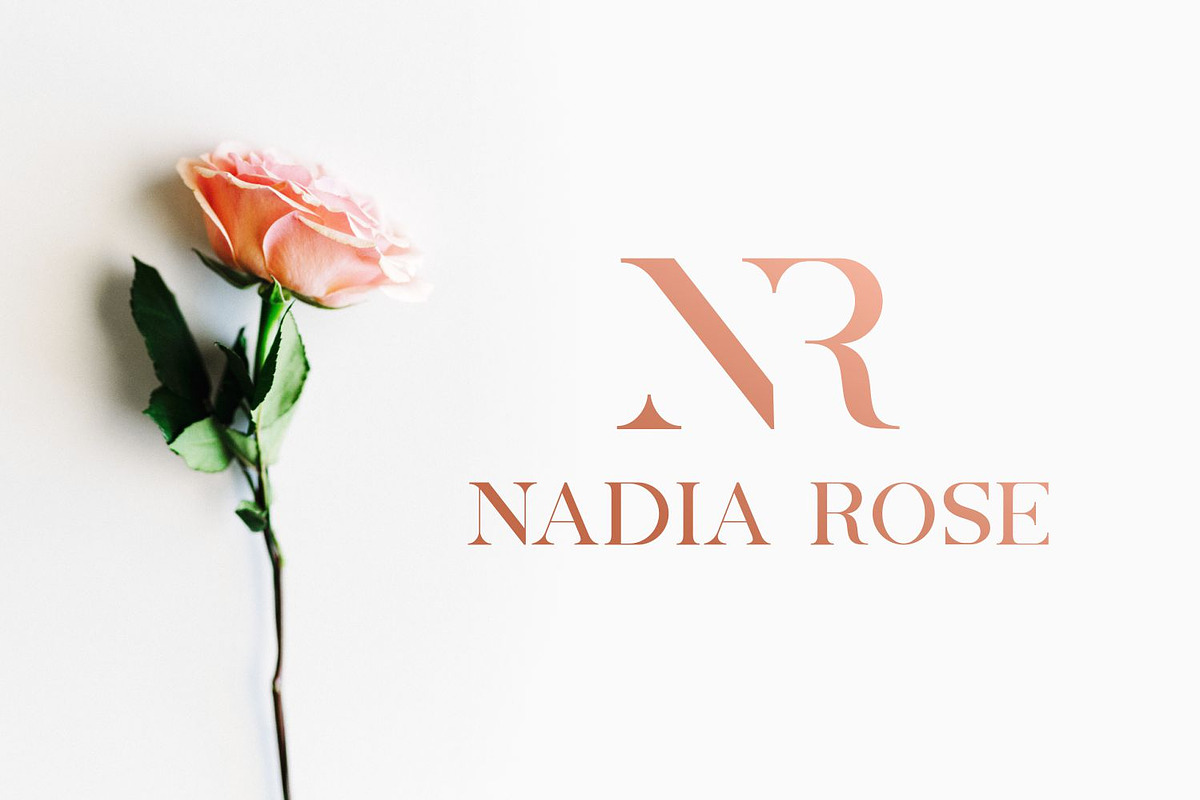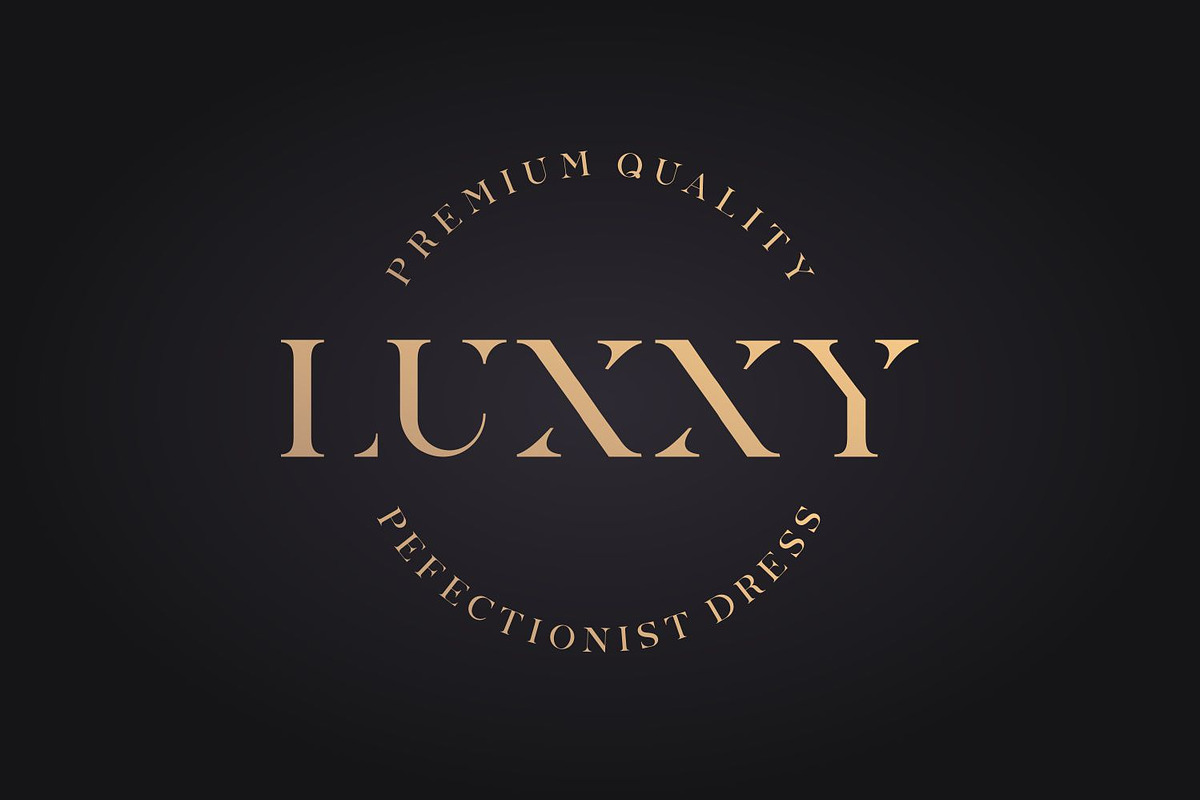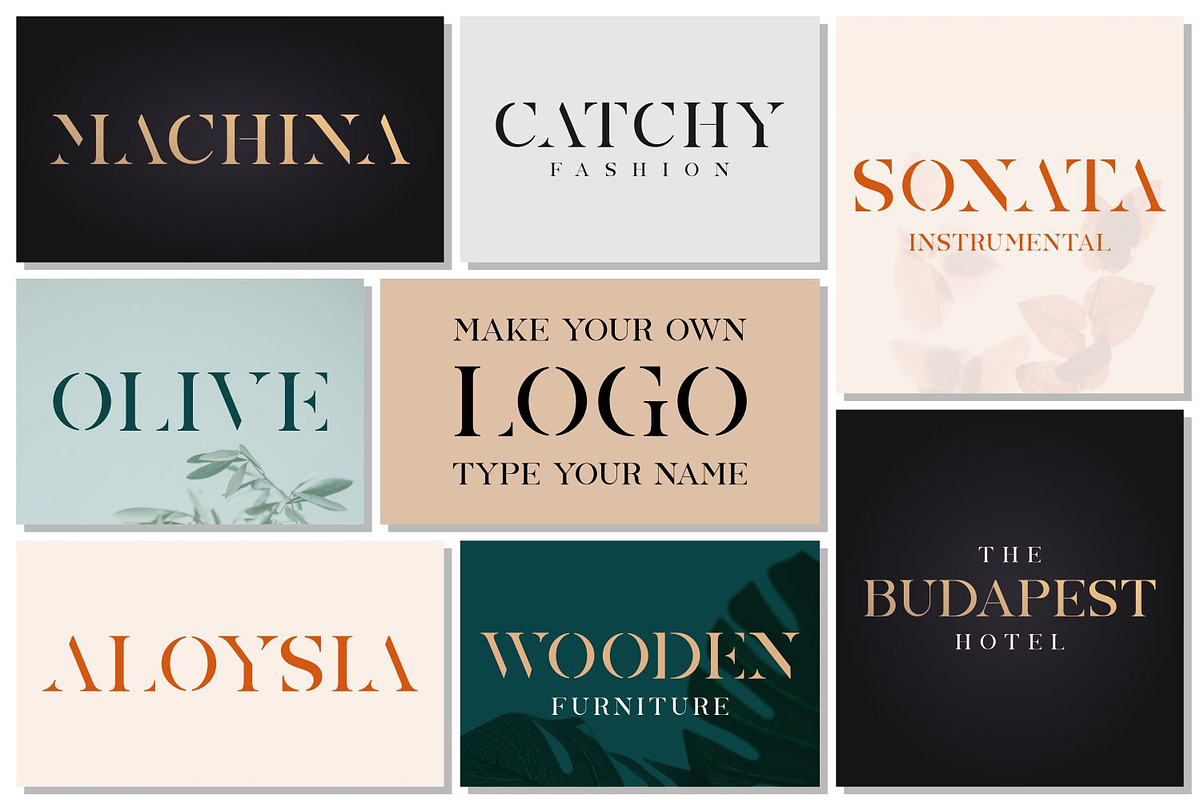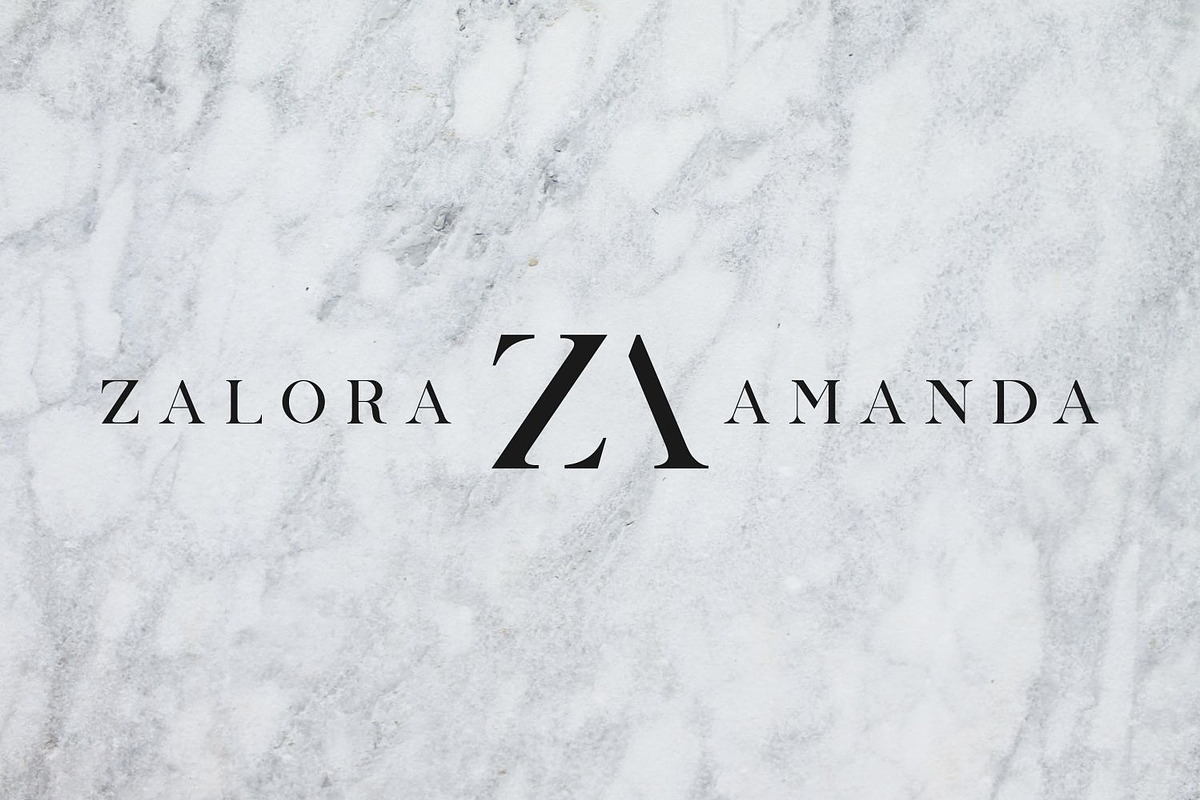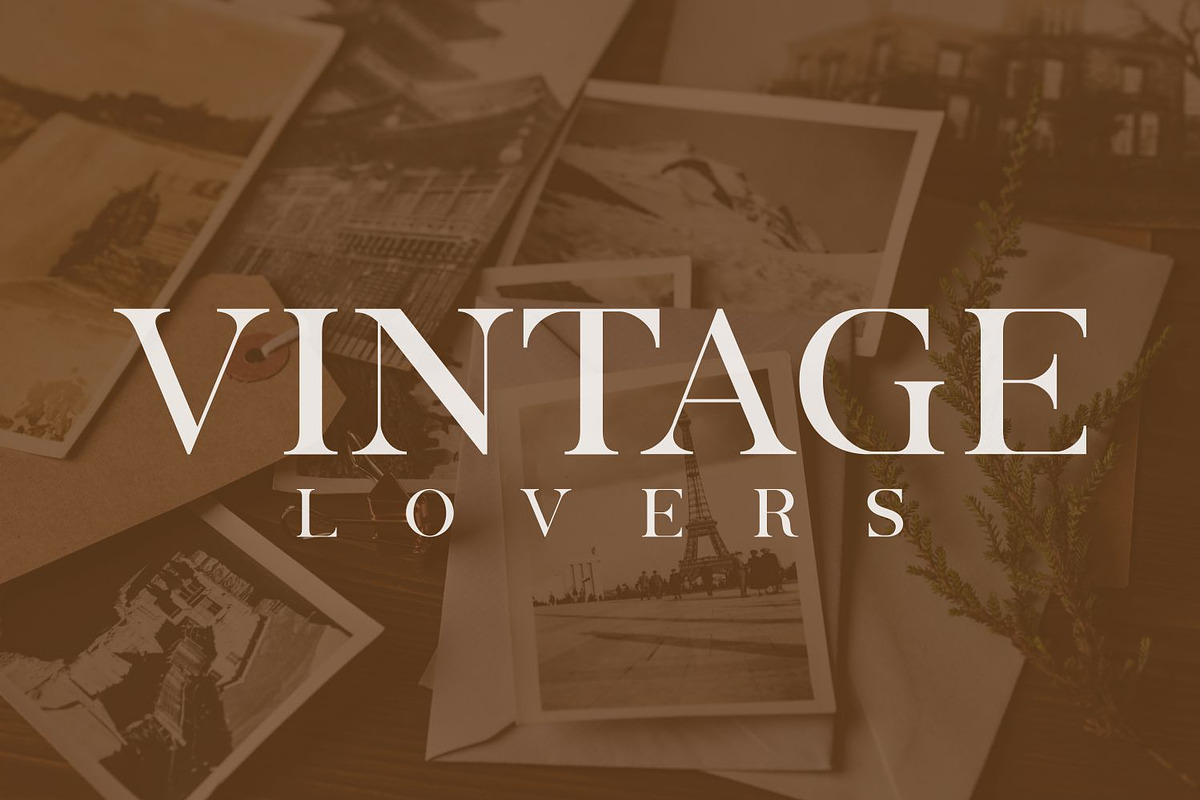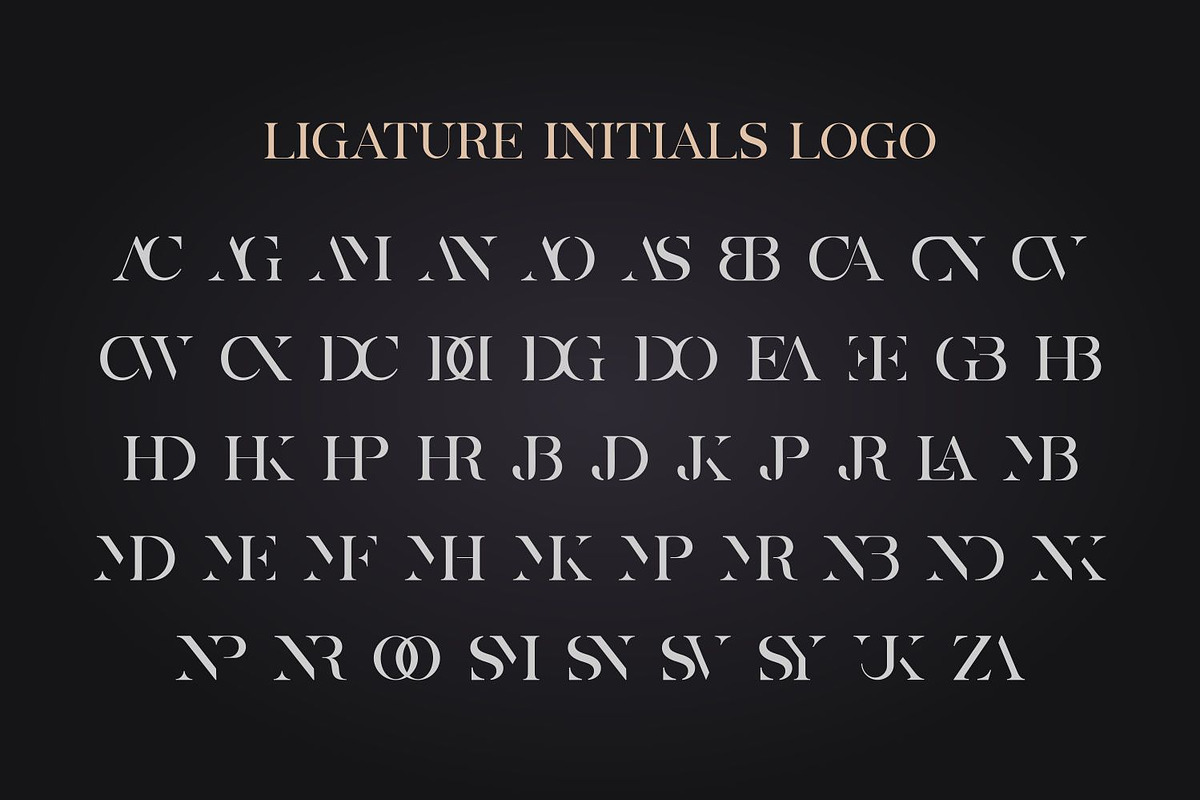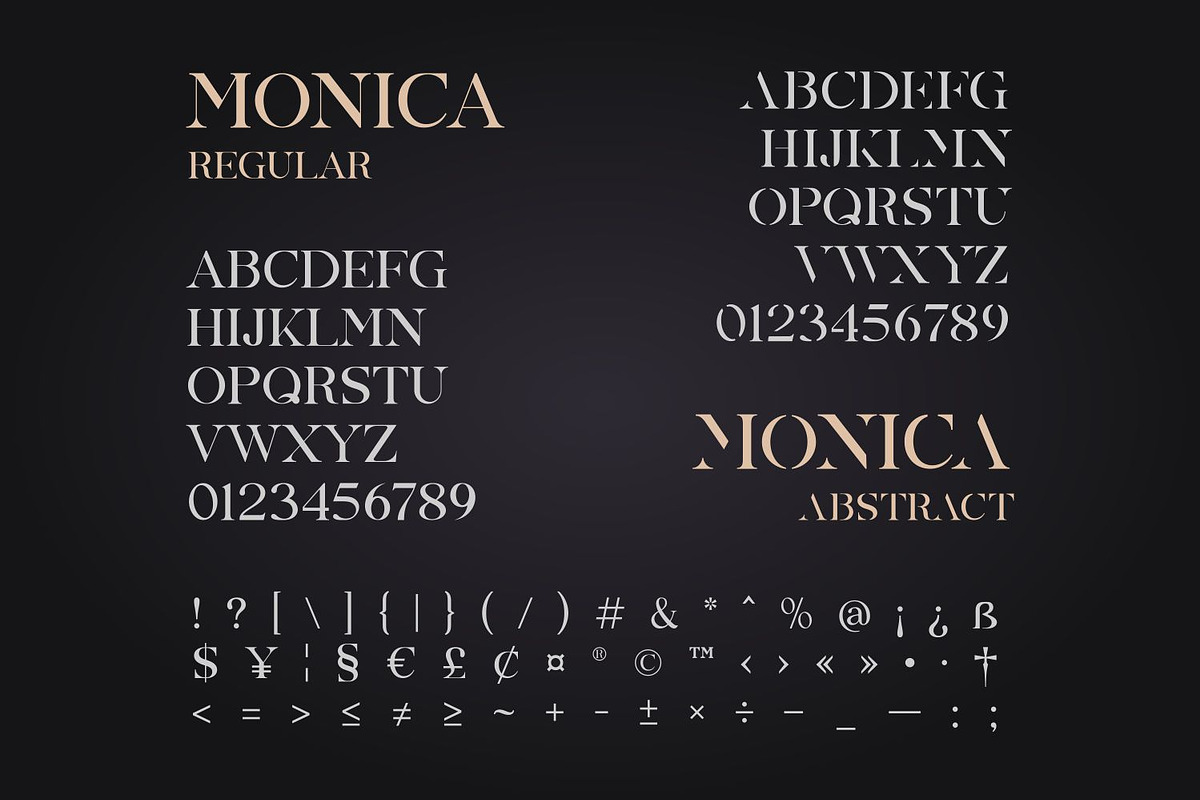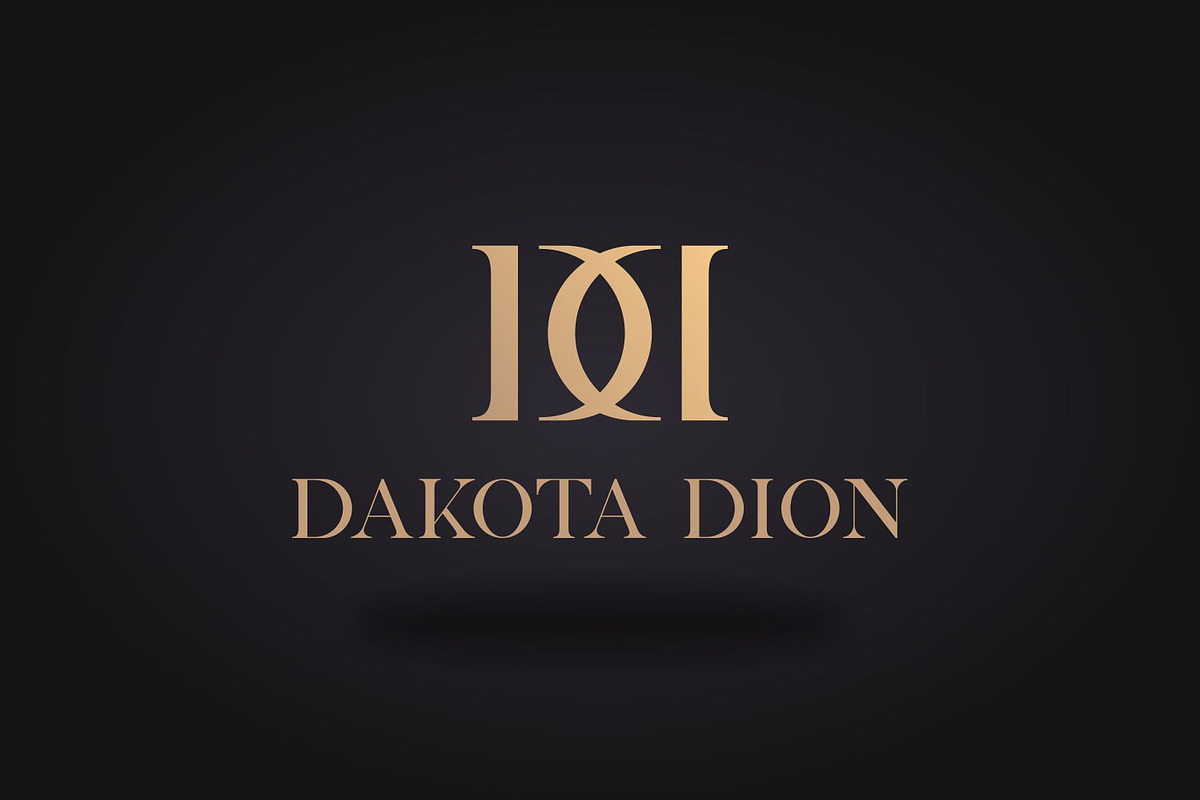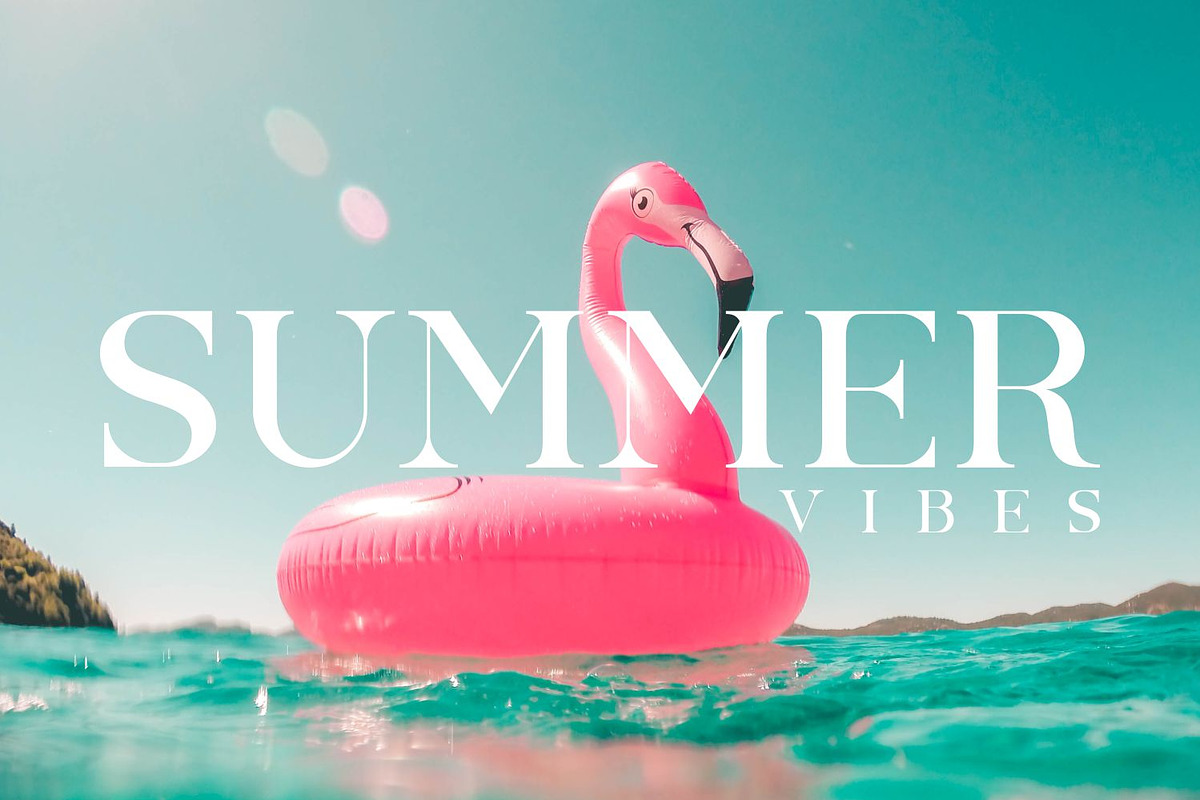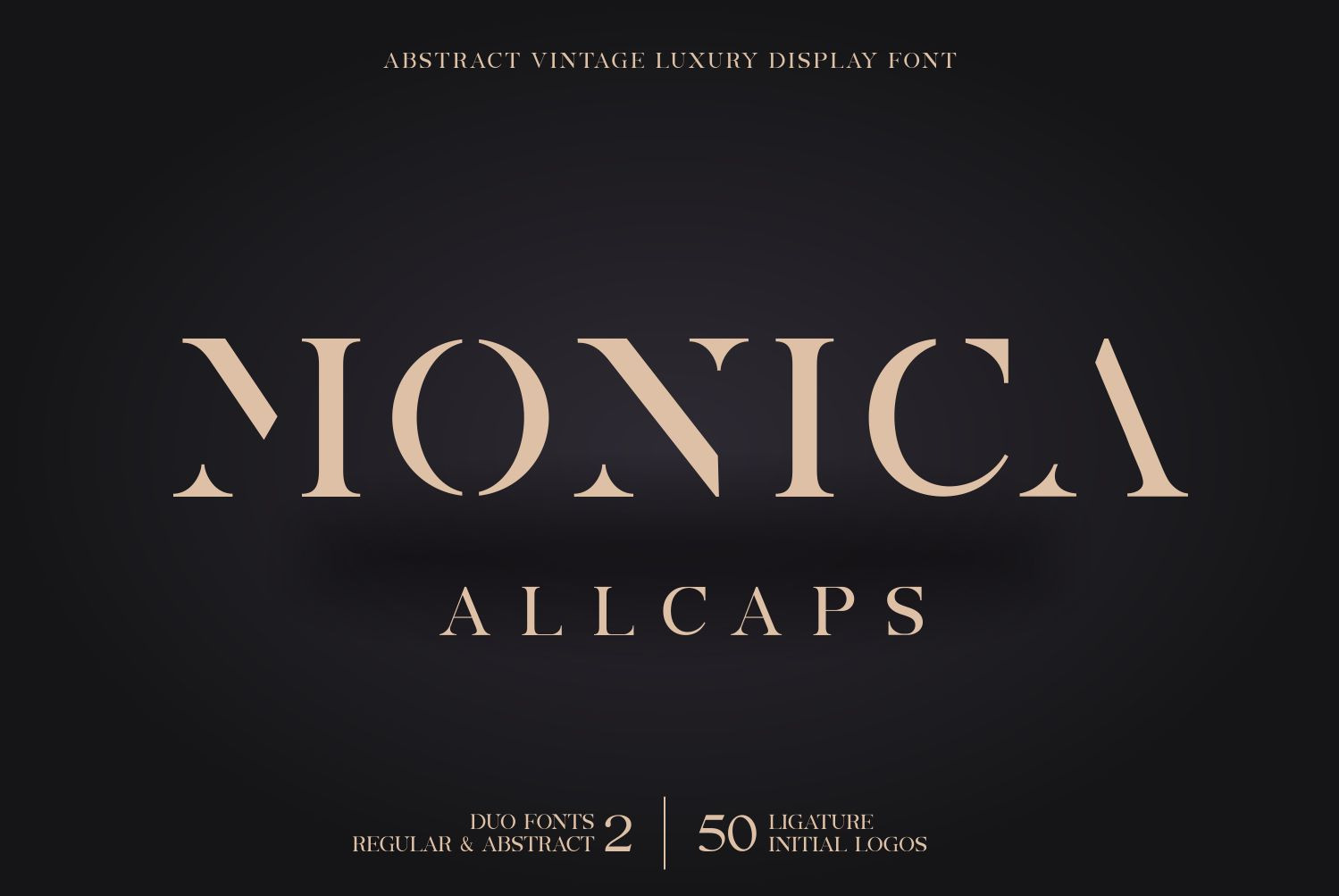
Monica Allcaps Font Duo
Monica Allcaps is a luxurious vintage display font. This font is themed vintage, classic, chic and stencil. There are 2 types of fonts, namely Monica Allcaps Regular and Monica Allcaps Abstract with a stencil appearance. This font is great for creating desired projects such as logos, posters, headlines, fashion and more. Monica Allcaps is an "All Capitals" typeface and has a ligature style that can be used for the initial logo. I hope you can make your own best logo.
Monica Allcaps fonts include standard glyph, ligature style, numeral, punctuation and multilingual support.